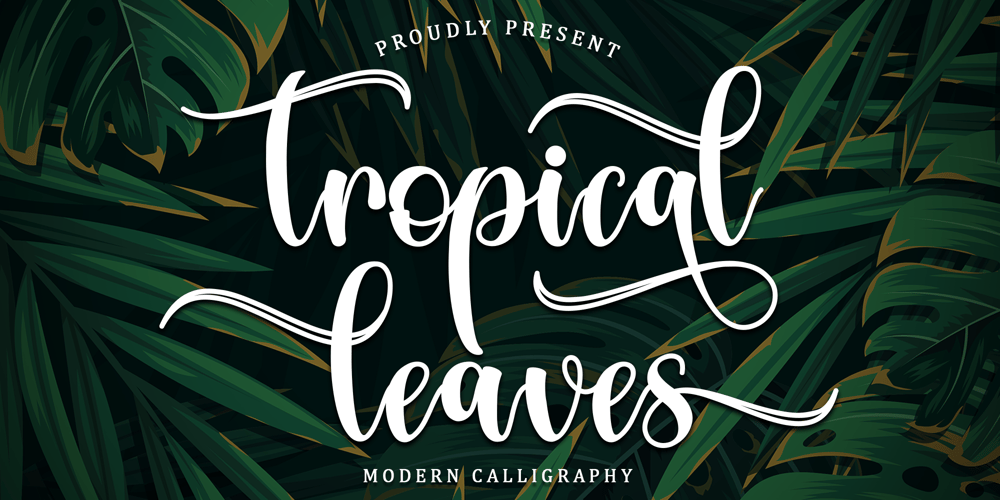
Tropical Leaves Font Family was designed by Alif Ryan Zulfikar and published by Sakha Design. Tropical Leaves contains 2 styles and family package options. Tropical Leaves is a modern calligraphy font. It will add a luxury spark to any design project that you wish to create! This font is PUA encoded which means you can access all of the amazing glyphs and ligatures with ease!